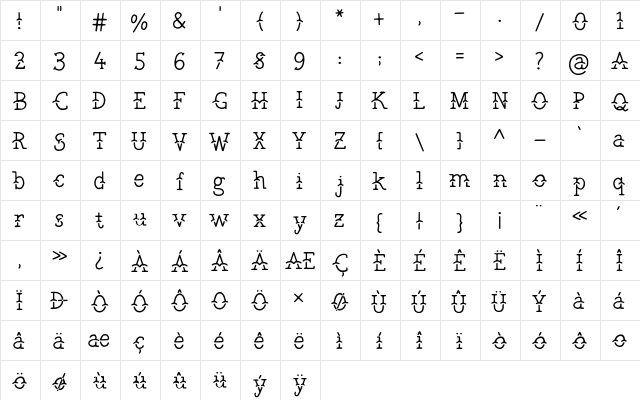
The Bearded Sailor Shadow
Design Context for The Bearded Sailor Typeface
The Bearded Sailor is built around its visual character rather than neutral utility — its distinctive forms are designed to make an impression at display sizes.
Font Pairing: Pair with a clean neutral sans-serif for body copy to let The Bearded Sailor's character lead without overwhelming the composition.
Pro Tip: Use The Bearded Sailor exclusively at display sizes — it was designed to be seen, not read at length. Let a neutral companion handle body copy.